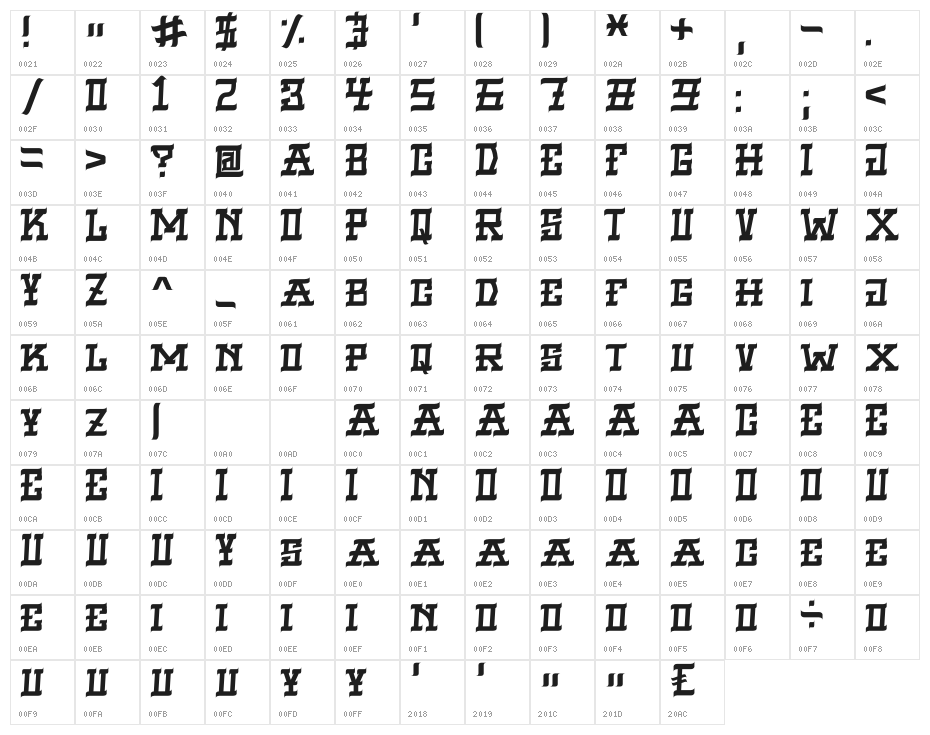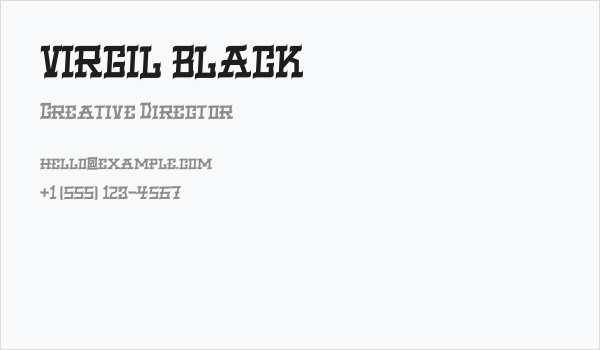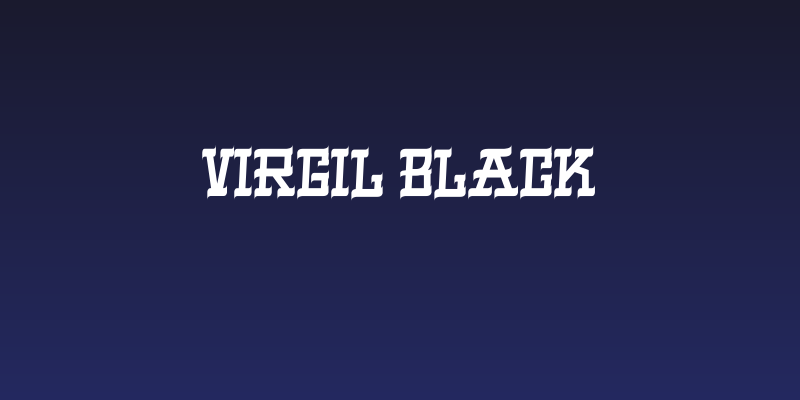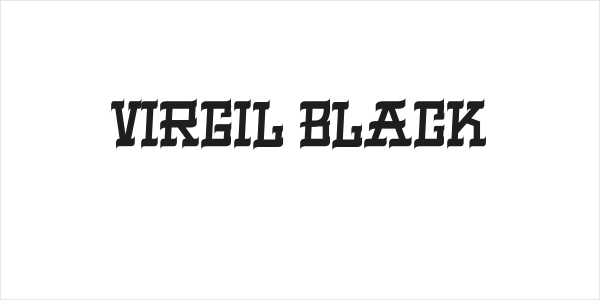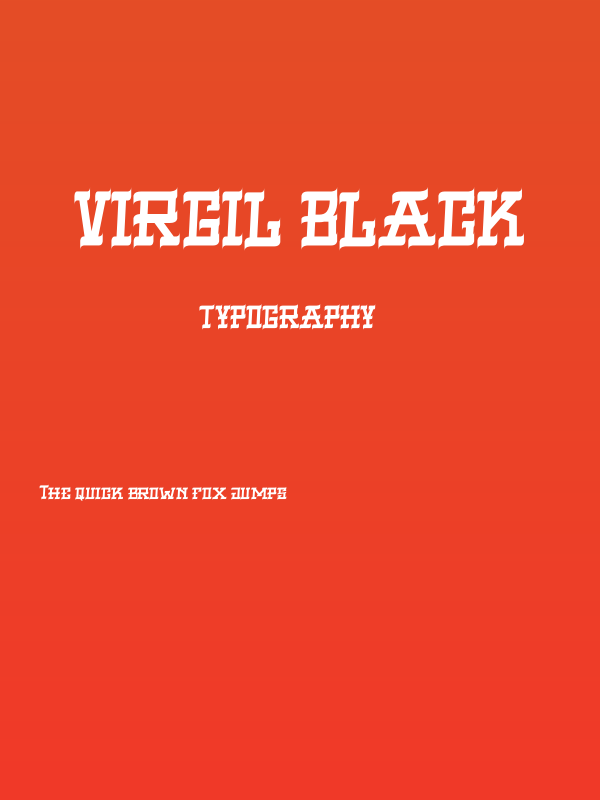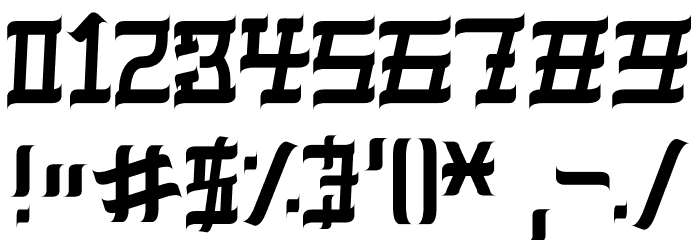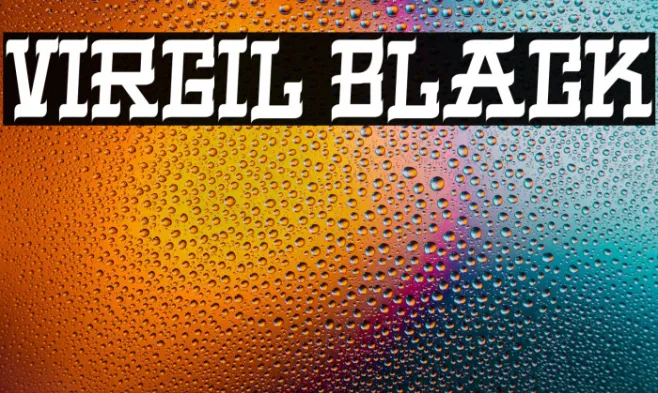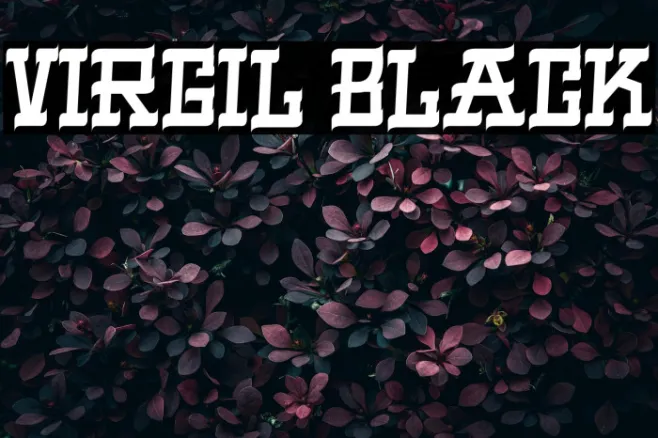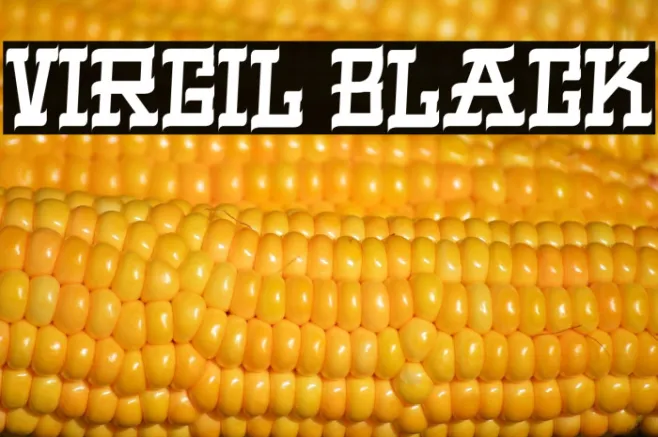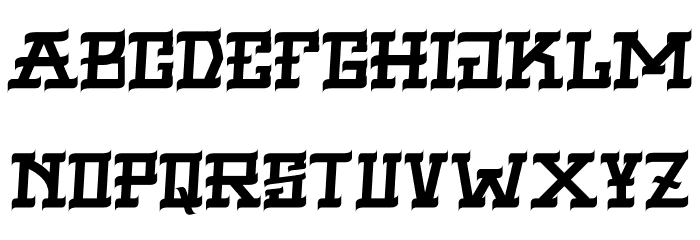
VIRGIL BLACK Font
VIRGIL BLACK Description
This font features a bold, blackletter-inspired design with strong, angular lines and a distinct, gothic appearance. The characters are heavily stylized, with sharp edges and a sense of movement, giving it a dynamic and impactful presence. The uppercase and lowercase letters maintain a consistent style, while the numerals and special characters complement the overall aesthetic. This font is ideal for projects that require a dramatic and eye-catching typeface.
| Overall Style | Gothic, Decorative |
| Proposed Projects | Perfect for posters, album covers, branding, and any design needing a bold, gothic touch. |